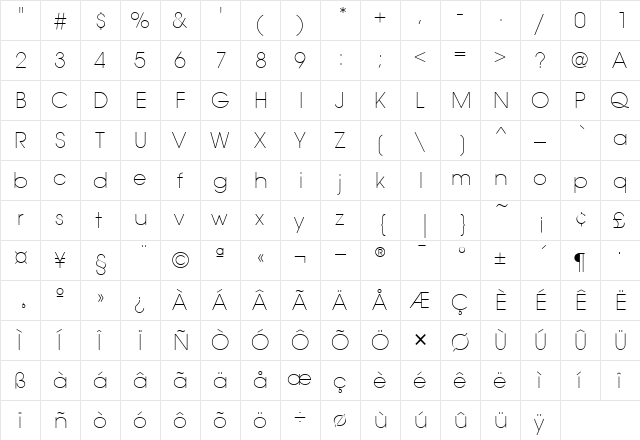
AvantGardeExtLitITC Regular
Design Context for AvantGardeExtLitITC Typeface
AvantGardeExtLitITC offers clean, dependable letterforms without strong stylistic allegiance, making it a practical choice for designers who need flexibility.
Pro Tip: Use AvantGardeExtLitITC in both headline and body roles to test its range before committing to a single application.